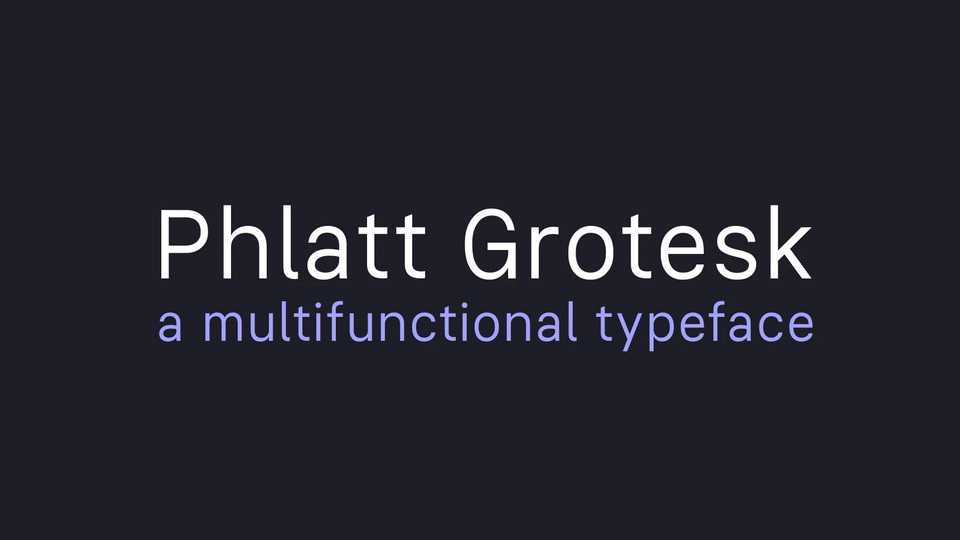
Download Phlatt Grotesk font, a multifunctional sans serif typeface. The design is meant to be the most default-looking, neutral, faceless, non-distracting piece of work, but simultaneously useful and advantageous in many cases.